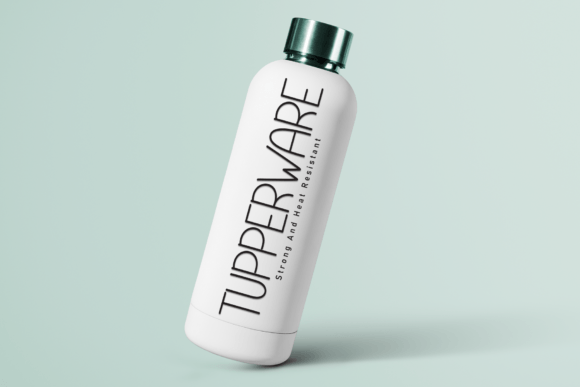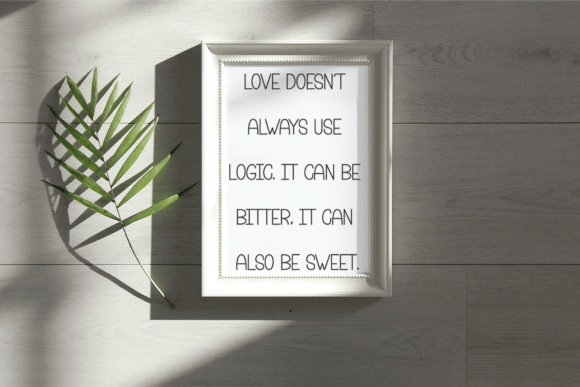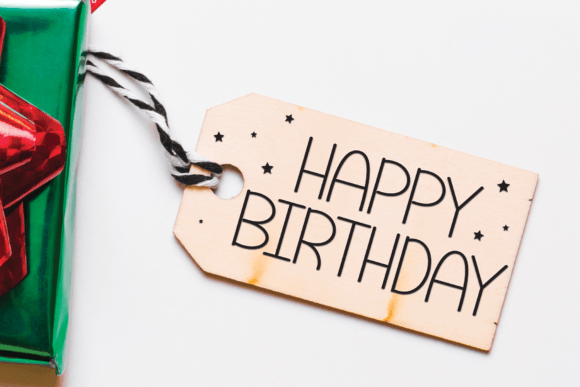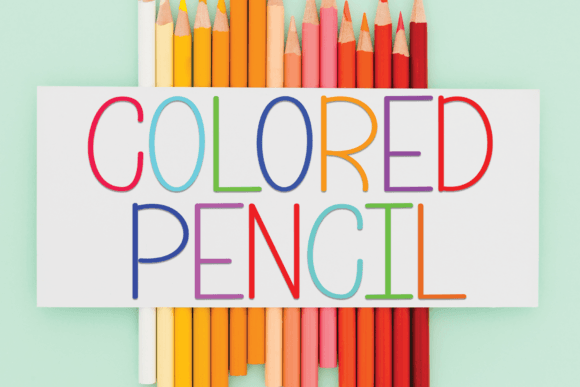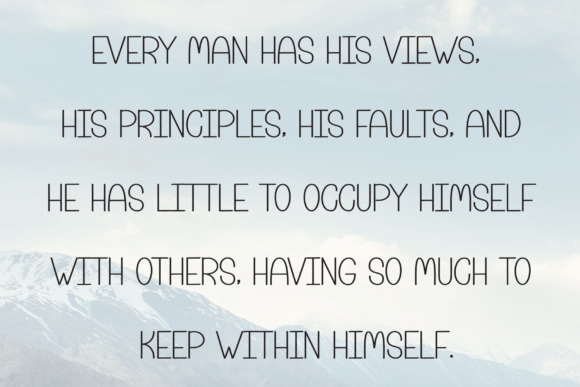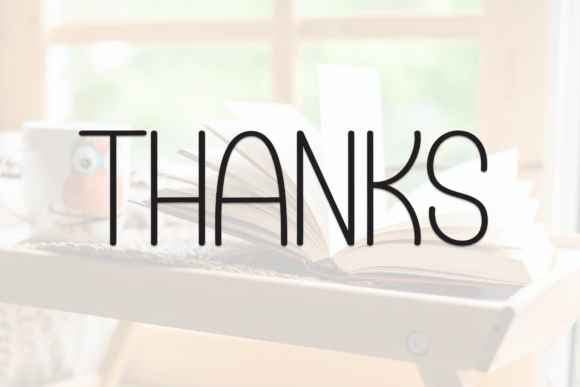
The Sweet Charm of Home Book Font: Adding a Personal Touch to Your Designs
Have you ever been stuck in a creative rut, searching for that perfect font to bring a personal touch to your design? We’ve all been there, scrolling through font libraries, trying to find that special something that sets our work apart. For me, it’s a font that screams “handmade with love” – the Home Book Font.
Home Book Font is a delightful, handwritten font that’s perfect for adding a touch of whimsy to your designs. Whether you’re crafting wedding invitations, cards, or any other project that needs a dash of personality, this font is sure to deliver. Its sweet and friendly feel makes it a valuable addition to any designer’s toolkit, offering a unique way to connect with your audience and make your designs truly stand out.
Key Features of Home Book Font
- Font Family: Home Book Font is a sans-serif font family designed for use in books and other print materials.
- Unique Characteristics: Home Book Font features a clean and modern design with subtle rounded edges, making it easy to read and suitable for both body text and headings.
Designer Review: Home Book Font
I recently had the chance to work with the Home Book Font, and I have to say, it’s a mixed bag.
- The font is incredibly versatile and can be used for a wide range of applications, from body text to display headings.
- The font’s rounded edges and subtle curves give it a friendly, approachable feel that’s perfect for branding and marketing materials.
- The font’s x-height is well-balanced, making it easy to read and understand, even at smaller sizes.
- The font’s italic and bold styles can sometimes feel a bit inconsistent, which can be jarring to the eye.
- The font’s weight range is a bit limited, which can make it difficult to create a clear visual hierarchy in some designs.
- The font’s OpenType features are not as extensive as some other fonts on the market.
Overall, I think the Home Book Font is a solid choice for many design projects. While it may have some limitations, its versatility and friendly feel make it a great option for branding and marketing materials. With a bit more attention to detail in the italic and bold styles, I think this font could be truly exceptional.
Use Home Book Font for headings and titles to create a warm and inviting atmosphere in your designs.
Home Book Font is ideal for creating typography-based designs, such as quotes, posters, and invitations.
Home Book Font is perfect for creating engaging presentations, reports, and documents that require a personal touch.
Home Book Font is commonly used for:
- Book covers and book designs.
- Invitations and event promotions.
- Typography-based posters and quotes.
- Personalized documents and presentations.
Alternatives to Home Book Font for Designers
Open Sans is a clean and modern sans-serif font, suitable for body text and headings. It’s highly legible and comes in multiple weights, making it versatile for various design projects. When to use: For digital interfaces, web design, and publications where a clean and modern look is desired.
Comparison to Home Book Font: Open Sans has a more modern feel and is more suitable for digital interfaces, while Home Book Font has a more classic and traditional feel.
Merriweather is a classic serif font, often used for body text and publications. It has a traditional feel and is highly legible. When to use: For print materials, such as books, magazines, and newspapers, where a classic and traditional look is desired.